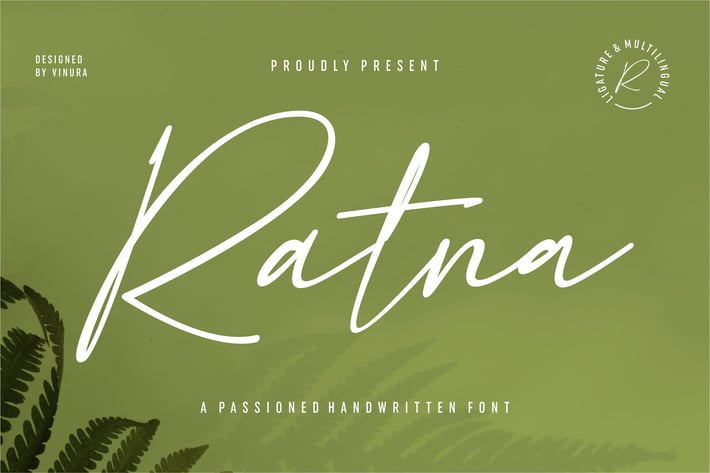
Ratna | A Passioned Handwritten Font
Ratna | A Passioned Handwritten Font with a calligraphy style, So beautiful on invitation like greeting cards, branding materials, business cards, quotes, posters, and more!